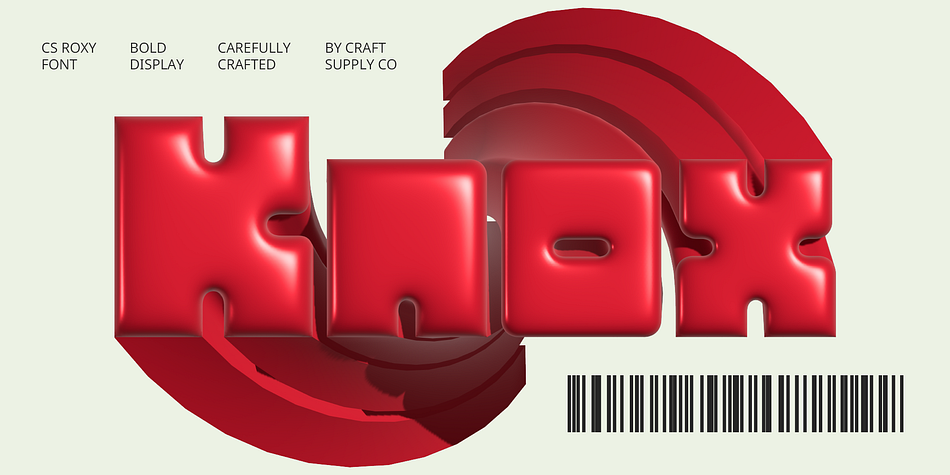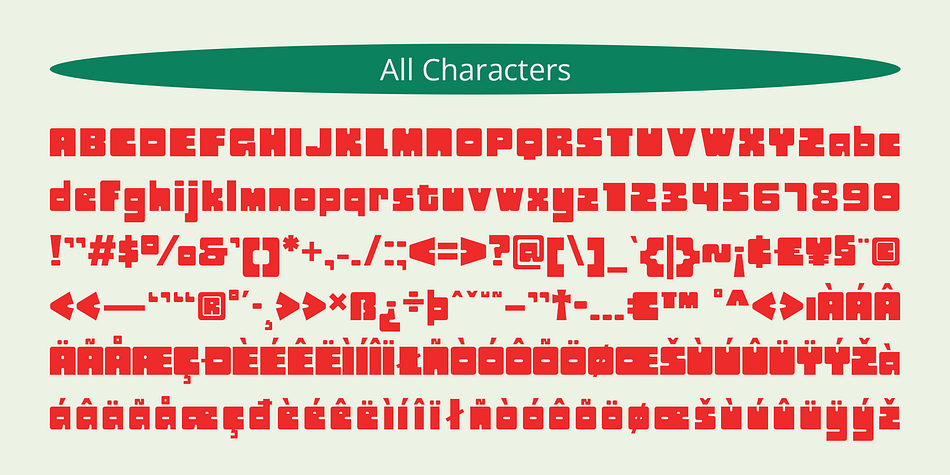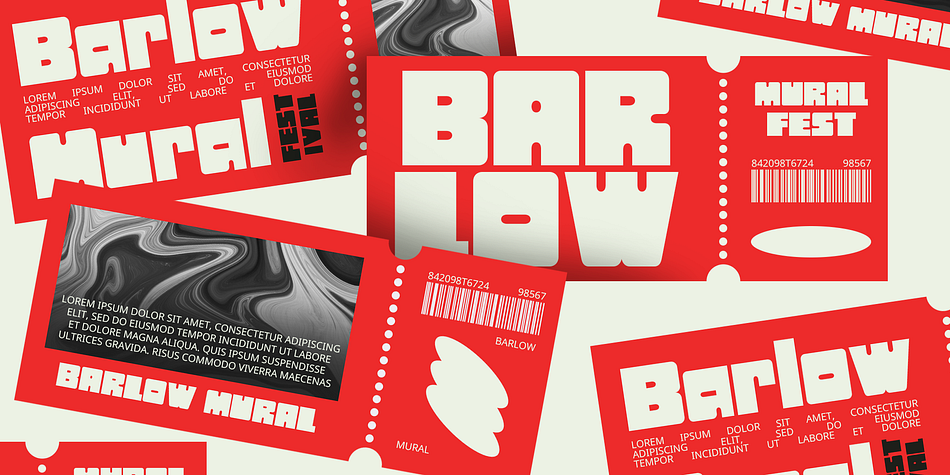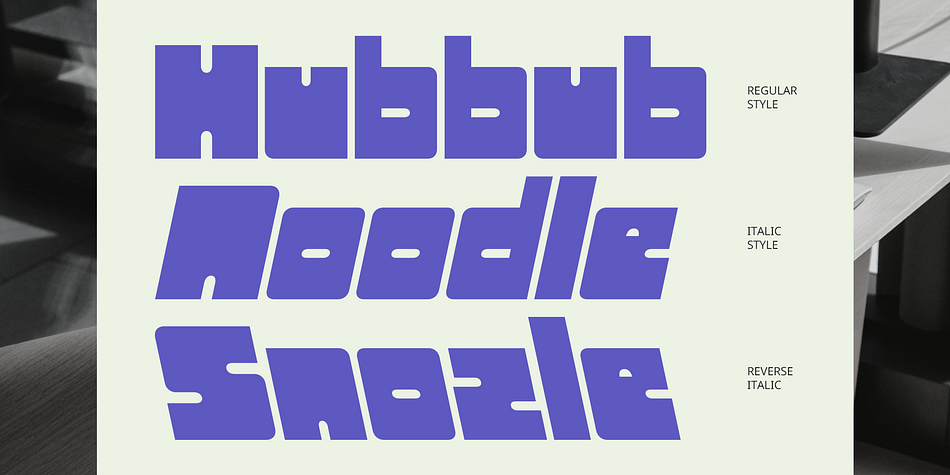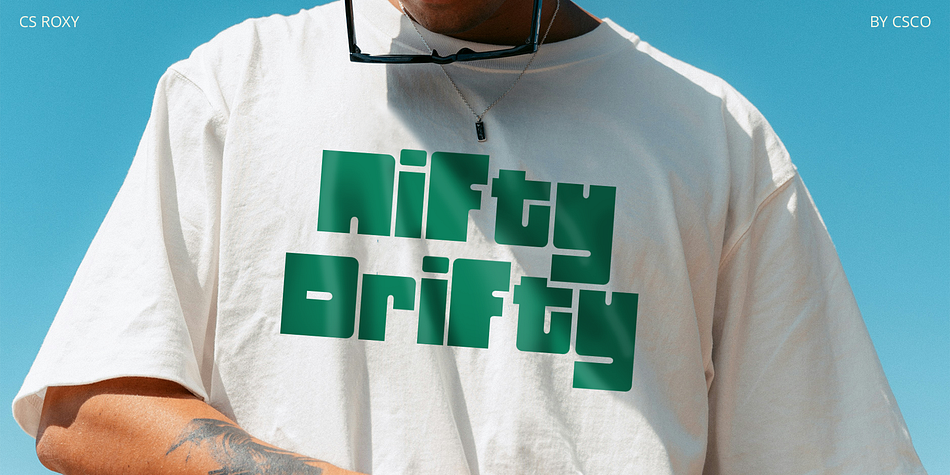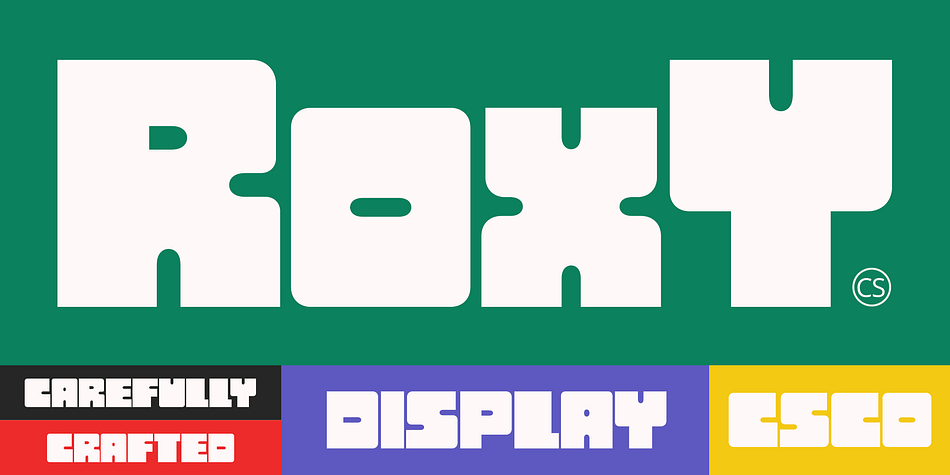
CS Roxy
CS Roxy is a retro font family. This typeface has three styles and was published by Craft Supply Co.
CS Roxy – Bold Font: Bold and Funky Display Font for Creative Projects
Bold and Funky Display Font
The CS Roxy display font, with its bold and funky style, offers a strong and energetic character. Its daring and playful design makes it ideal for grabbing attention in various creative projects.
Perfect for Posters, Advertisements, and Branding
CS Roxy’s bold design is perfect for posters, advertisements, and branding. The font exudes a cheerful and dynamic vibe, ensuring your messages stand out.
Cheerful and Dynamic Vibe
This font provides an eye-catching and impressive look for audiences. Its unique and distinctive form makes it the perfect choice for designs that aim to highlight creativity and joy.
Ideal for Highlighting Creativity and Joy
CS Roxy’s bold and funky style adds a playful touch to any project. Ideal for creative endeavors, this font brings an energetic and joyful vibe, making your designs memorable and impactful.